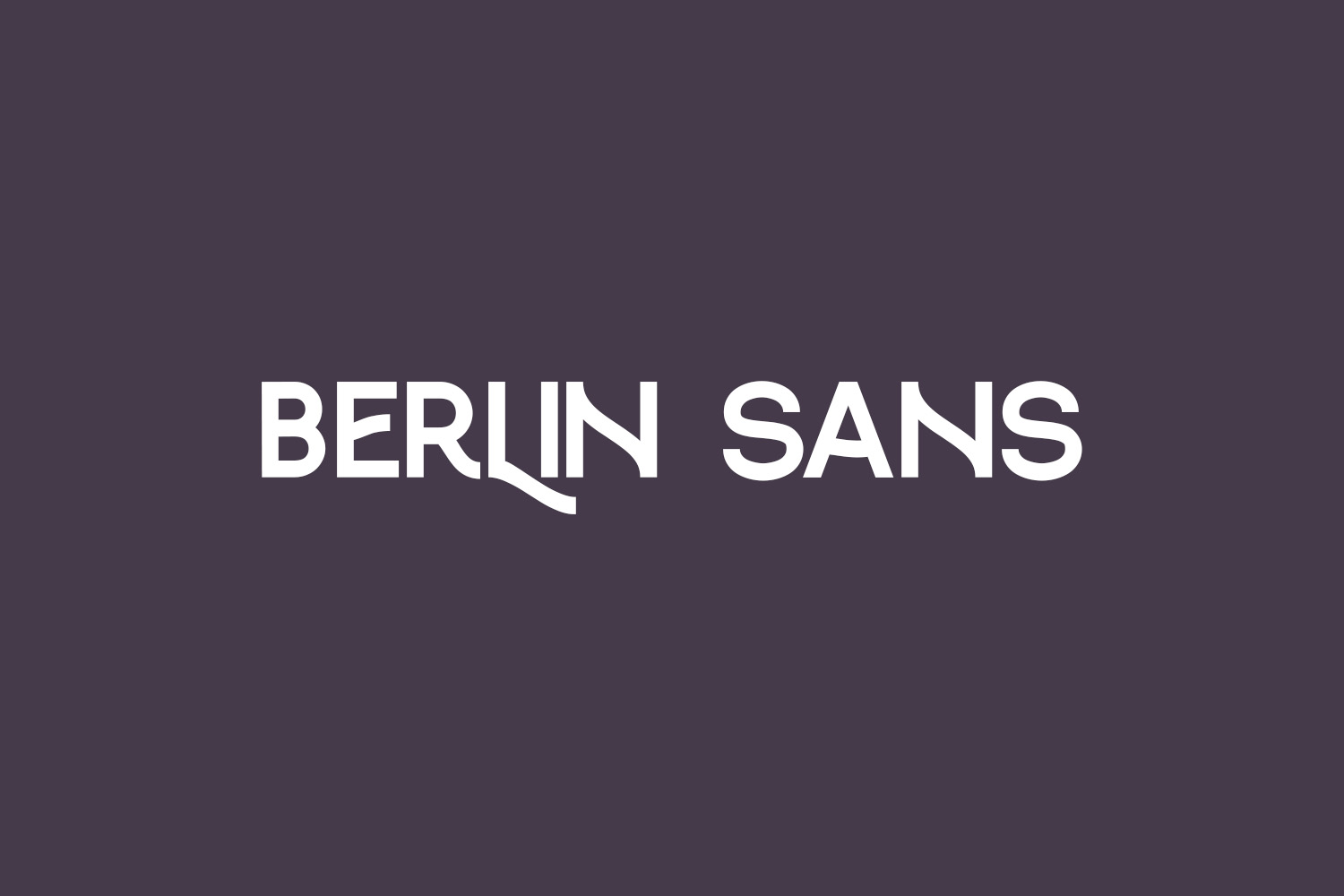
Font Berlin Sans
Font Berlin Sans - Web berlin sans à € by andika fez. Web berlin sans fb regular is a regular truetype font. Berlin is a group of display fonts inspired by the classic geometric typefaces from early last century. 5 users have given the font a rating of 4.6 out of 5. It has been downloaded 2592 times. Assisted by matthew butterick, david. In basic > sans serif. You can find more information about berlin sans fb regular and it's character. Moreover, you can embed it to your website. It features (so far) four versions, each one in three weights:
Web berlin sans fb regular is a regular truetype font. Moreover, you can embed it to your website. Assisted by matthew butterick, david. You can find more information about berlin sans fb regular and it's character. 5 users have given the font a rating of 4.6 out of 5. Berlin is a group of display fonts inspired by the classic geometric typefaces from early last century. In basic > sans serif. It features (so far) four versions, each one in three weights: It has been downloaded 2592 times. Web berlin sans à € by andika fez.
Moreover, you can embed it to your website. 5 users have given the font a rating of 4.6 out of 5. Web berlin sans à € by andika fez. Web berlin sans fb regular is a regular truetype font. In basic > sans serif. It features (so far) four versions, each one in three weights: It has been downloaded 2592 times. You can find more information about berlin sans fb regular and it's character. Assisted by matthew butterick, david. Berlin is a group of display fonts inspired by the classic geometric typefaces from early last century.
In basic > sans serif. Web berlin sans fb regular is a regular truetype font. Assisted by matthew butterick, david. Web berlin sans à € by andika fez. 5 users have given the font a rating of 4.6 out of 5.
It features (so far) four versions, each one in three weights: Web berlin sans à € by andika fez. In basic > sans serif. Web berlin sans fb regular is a regular truetype font. Assisted by matthew butterick, david.
Assisted by matthew butterick, david. You can find more information about berlin sans fb regular and it's character. Web berlin sans fb regular is a regular truetype font. Web berlin sans à € by andika fez. Moreover, you can embed it to your website.
Web berlin sans fb regular is a regular truetype font. 5 users have given the font a rating of 4.6 out of 5. Moreover, you can embed it to your website. Web berlin sans à € by andika fez. Berlin is a group of display fonts inspired by the classic geometric typefaces from early last century.
Moreover, you can embed it to your website. You can find more information about berlin sans fb regular and it's character. Assisted by matthew butterick, david. It features (so far) four versions, each one in three weights: In basic > sans serif.
It features (so far) four versions, each one in three weights: 5 users have given the font a rating of 4.6 out of 5. Web berlin sans fb regular is a regular truetype font. Moreover, you can embed it to your website. Assisted by matthew butterick, david.
It has been downloaded 2592 times. It features (so far) four versions, each one in three weights: In basic > sans serif. Berlin is a group of display fonts inspired by the classic geometric typefaces from early last century. Moreover, you can embed it to your website.
Berlin Sans FB font
It has been downloaded 2592 times. It features (so far) four versions, each one in three weights: Moreover, you can embed it to your website. Web berlin sans fb regular is a regular truetype font. Web berlin sans à € by andika fez.
Berlin Sans Fonts Shmonts
Assisted by matthew butterick, david. Web berlin sans à € by andika fez. Web berlin sans fb regular is a regular truetype font. Moreover, you can embed it to your website. Berlin is a group of display fonts inspired by the classic geometric typefaces from early last century.
Berlin Sans FB Regular truetype font
Moreover, you can embed it to your website. Assisted by matthew butterick, david. It features (so far) four versions, each one in three weights: It has been downloaded 2592 times. Berlin is a group of display fonts inspired by the classic geometric typefaces from early last century.
Moreover, You Can Embed It To Your Website.
Berlin is a group of display fonts inspired by the classic geometric typefaces from early last century. 5 users have given the font a rating of 4.6 out of 5. Web berlin sans fb regular is a regular truetype font. It has been downloaded 2592 times.
It features (so far) four versions, each one in three weights: Web berlin sans à € by andika fez. You can find more information about berlin sans fb regular and it's character. In basic > sans serif.